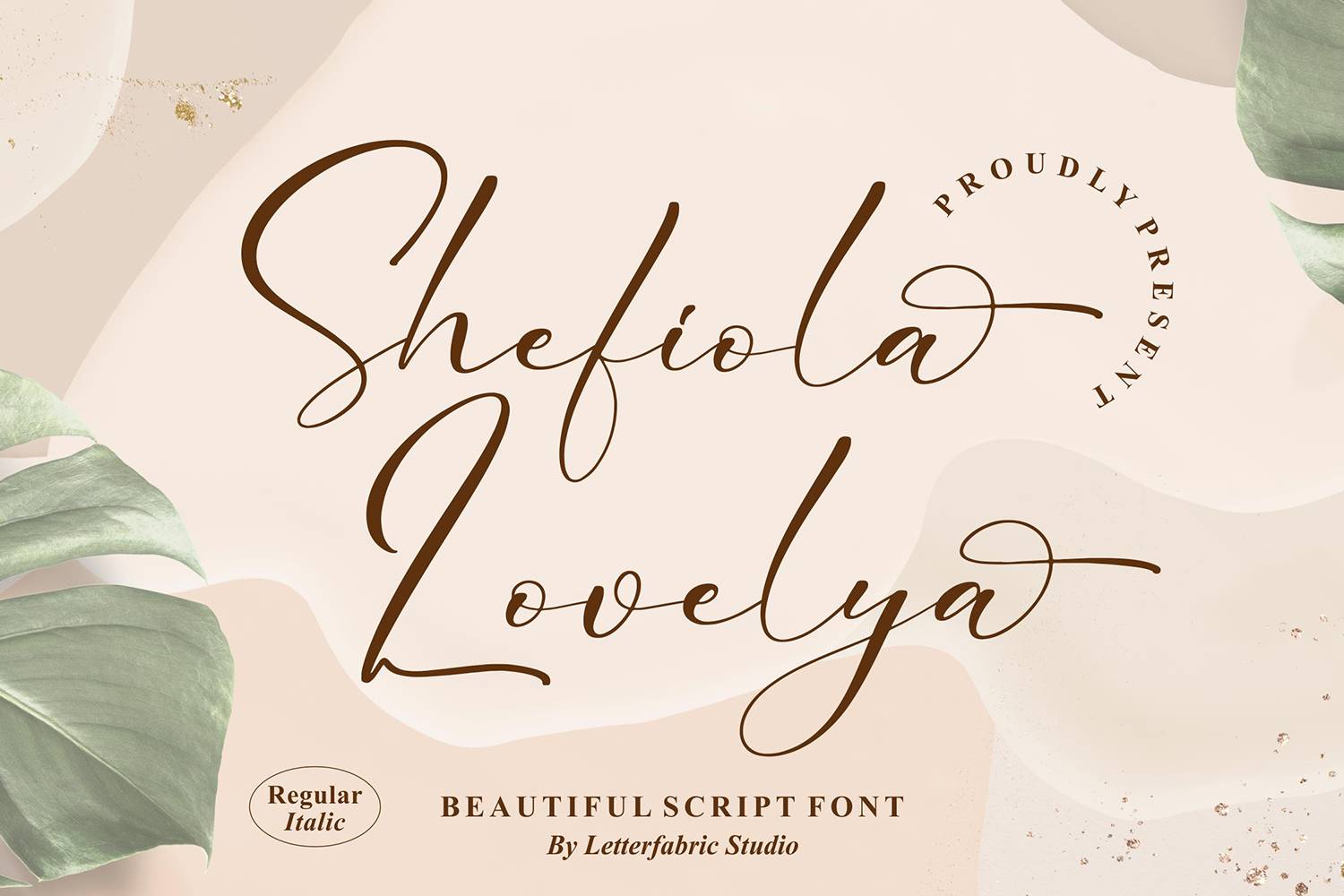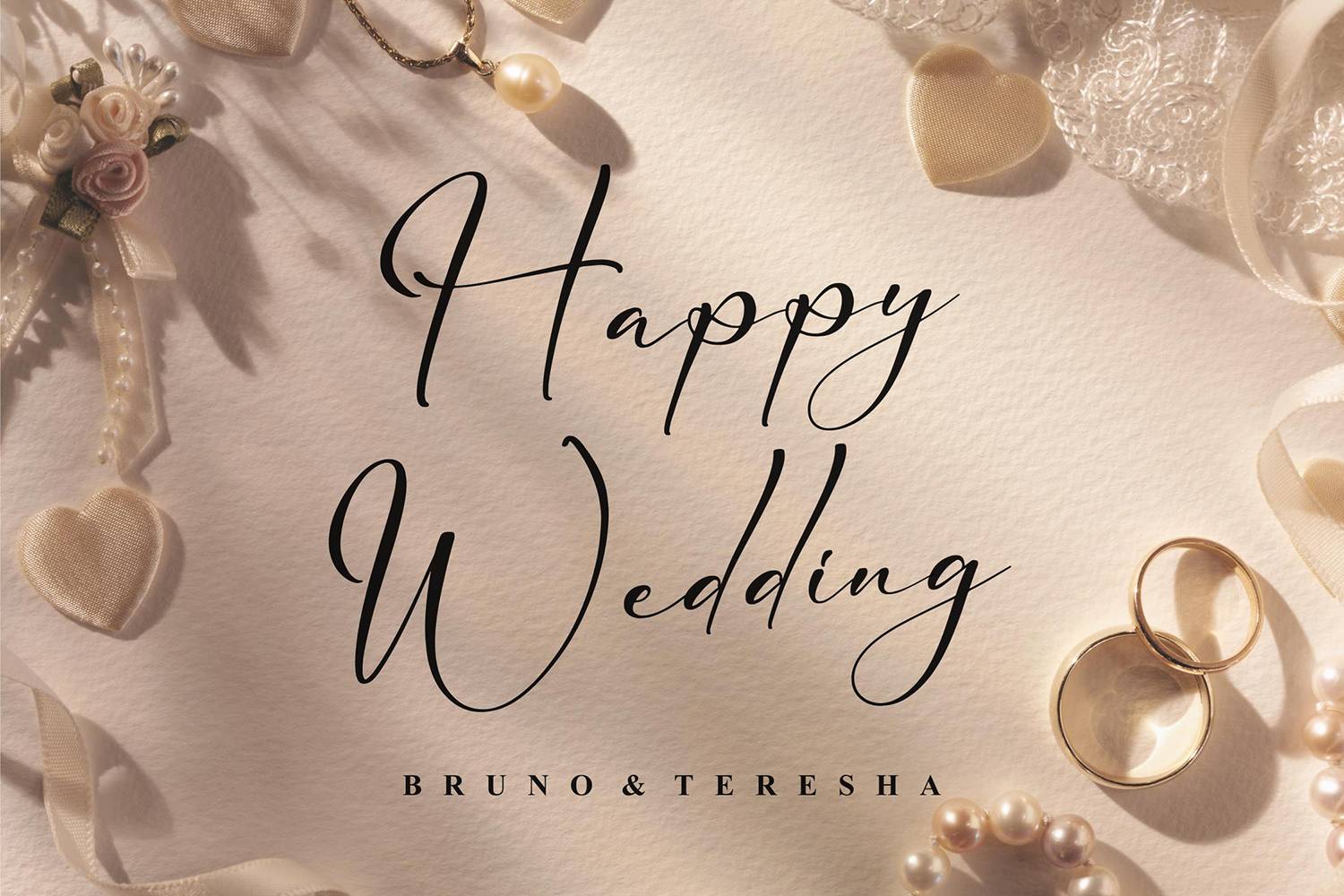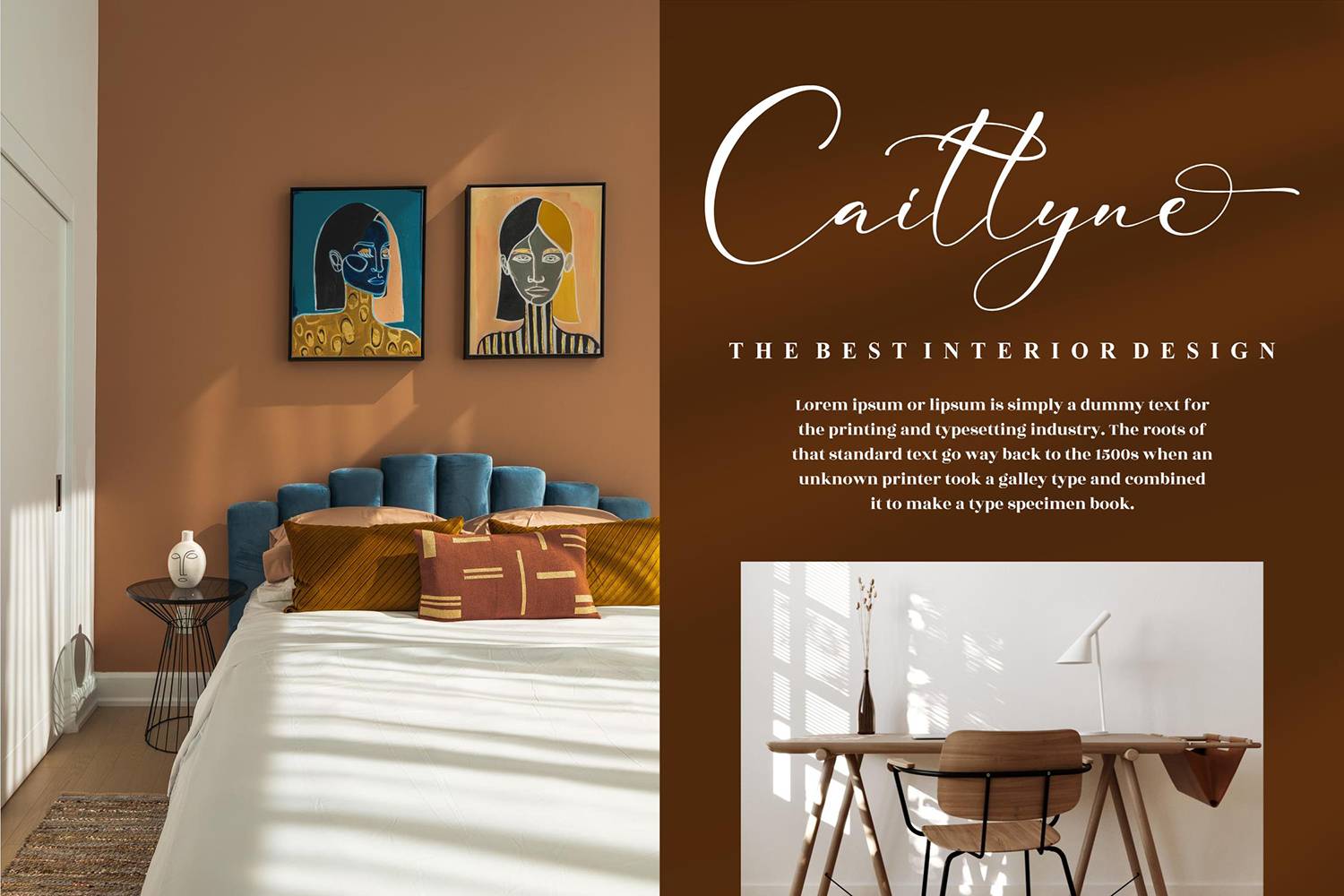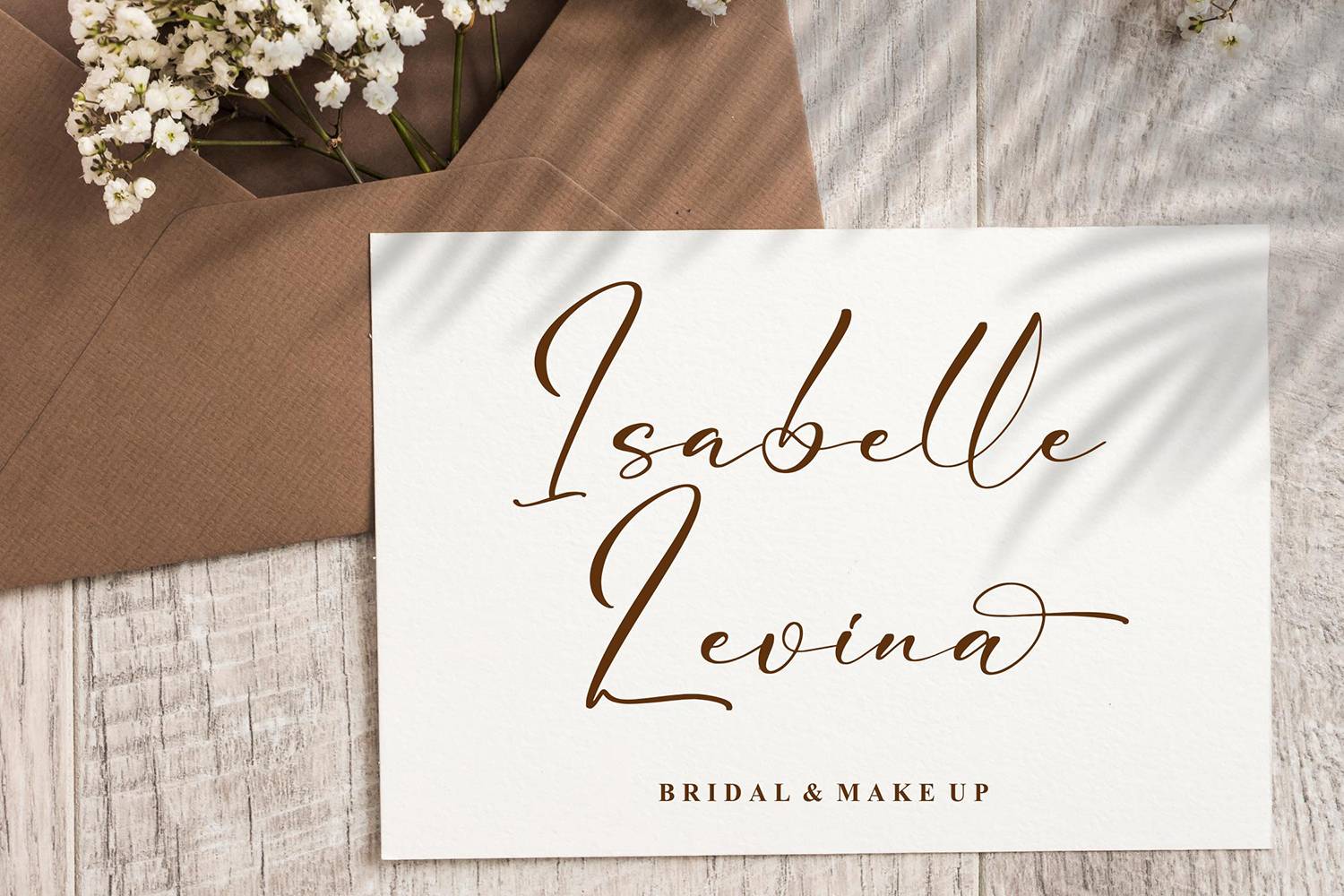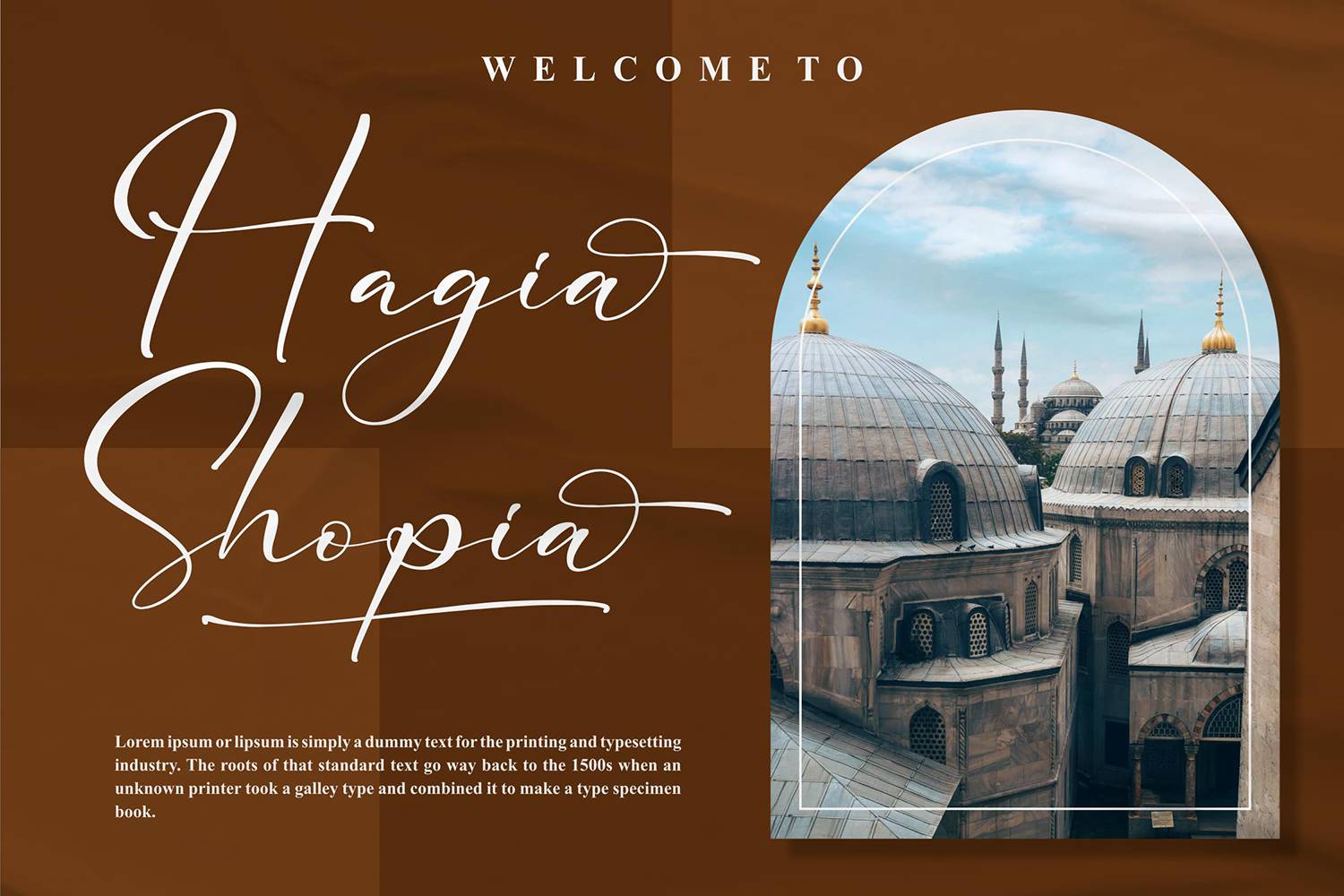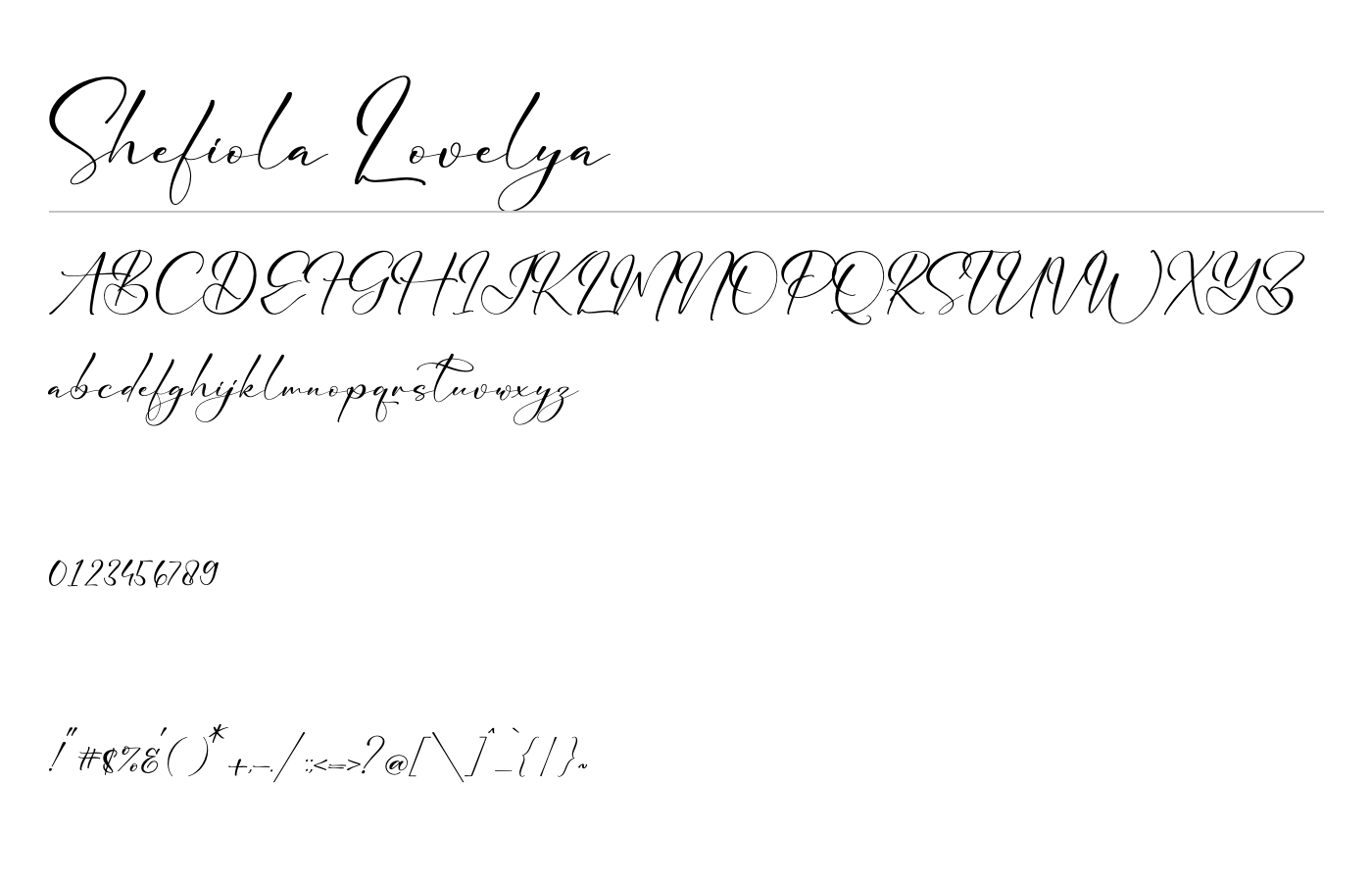
Shefiola Lovelya is a delicate and elegant script font characterized by its thin, flowing strokes and graceful, handwritten style. It features high contrast with fine, calligraphic lines that convey sophistication and charm, making it ideal for wedding invitations, luxury branding, and feminine editorial designs. This font excels in creating a refined and personal touch, perfect for headlines and decorative text where a soft, romantic feel is desired.
Shefiola Lovelya Font
About Shefiola Lovelya Font